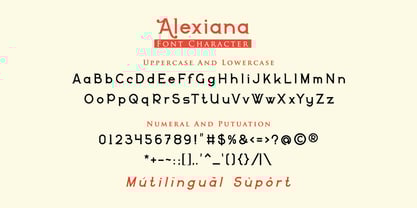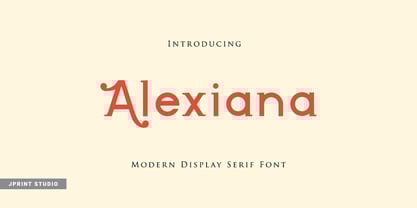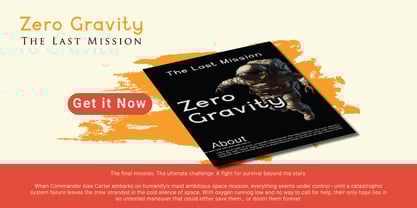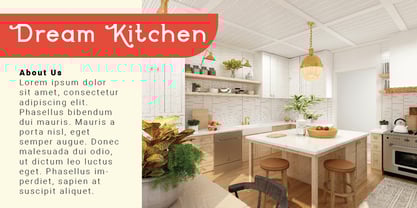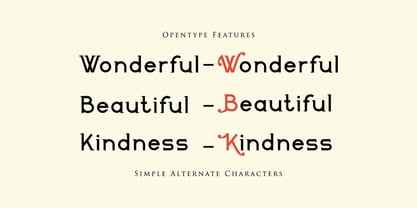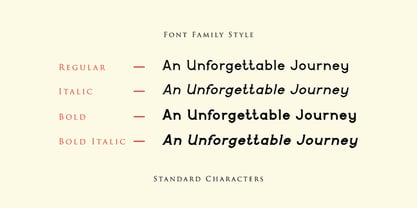
Alexiana
by JprintStudio
The Alexiana Font Family was designed by Gais Zaelani and published by JprintStudio. Alexiana contains 4 styles and family package options. More about this family
Introducing Alexiana, a radiant serif font evocative of a vintage era. Its notable retro-conservative touch makes it especially suitable for embodying your texts with an air of nostalgia. But that's not all Alexiana offers. With its modern, expressive alternatives and unique fasteners, be ready to inject a dose of fun into any project. Adjust and play around with these features, and watch your design take on a distinctive character. What's more, Alexiana boasts a PUA coding feature. This means, you get easy, uninhibited access to all its splendid glyphs and ligatures, and can effortlessly enhance the aesthetic appeal of your work. Be it for a grand design or a minimalist piece, Alexiana is ready to cater to your font needs with its adaptable yet distinct style.
Designers: Gais Zaelani
Foundry: JprintStudio